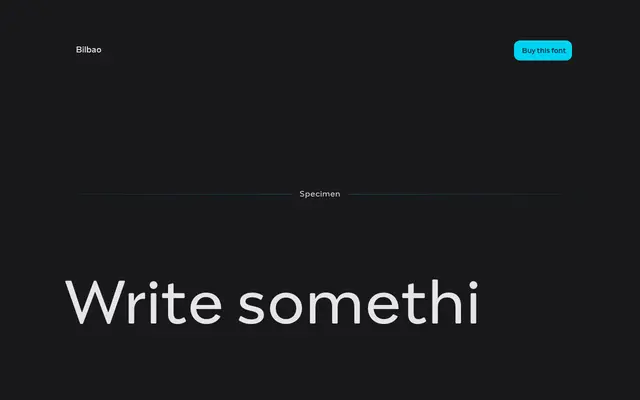
Bilbao
Capitalics · Mateusz Machalski
A geometric hybrid typeface blending sans, slab and mono references across 22 styles from Hairline to Black, aimed at branding and display use.
Designed by Mateusz Machalski at Capitalics, Bilbao draws from sans, slab and mono traditions while maintaining a consistent geometric character throughout its range. The full family spans 11 weights from Hairline to Black, each with a matching italic, giving designers broad flexibility for hierarchical work. The foundry positions it for branding and display purposes, where its mixed structural references read as approachable rather than clinical.
Described by the foundry as a hybrid of sans, slab and mono with geometric details; the blending of structural references across multiple type categories makes display the most accurate top-level classification.